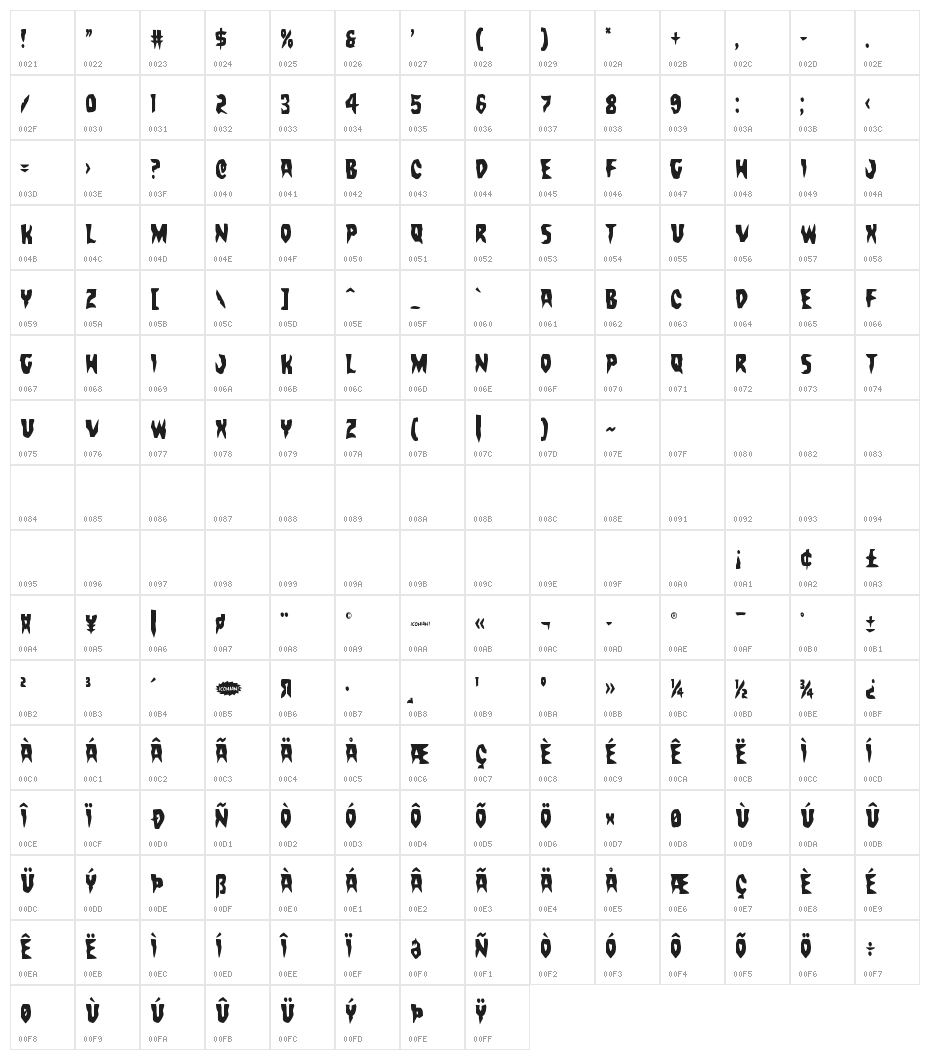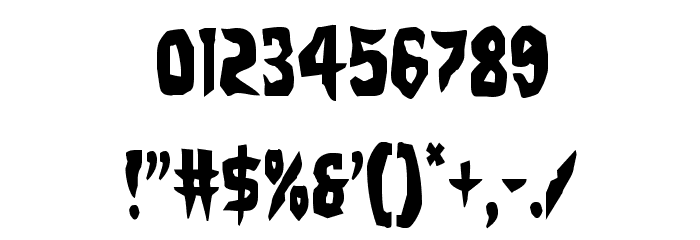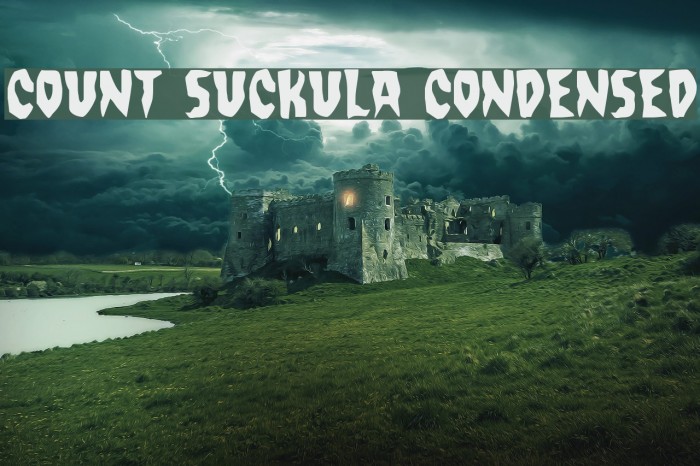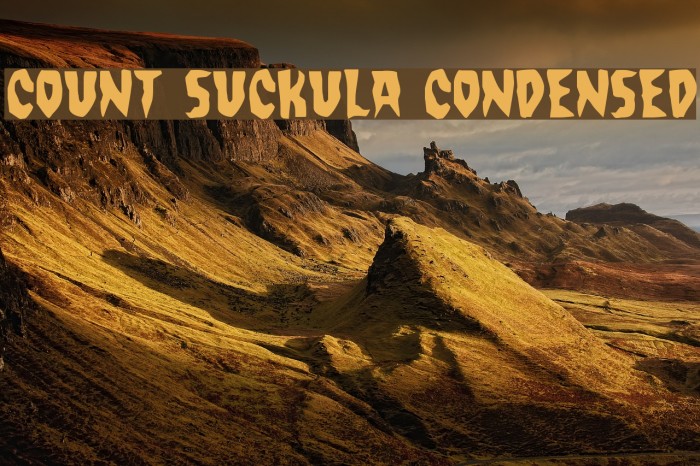
Count Suckula Condensed Font
Count Suckula Condensed Description
This font features a bold and dramatic style with sharp, angular edges and a condensed form. The characters are designed with a high level of contrast, giving them a striking and somewhat gothic appearance. The uppercase letters are particularly prominent, with exaggerated serifs and a unique, jagged look that adds to the font's distinctive character. The numbers and special characters maintain this bold and edgy aesthetic, making the font suitable for attention-grabbing designs. The overall style is both decorative and modern, with a hint of vintage flair.
| Proposed Projects | Ideal for Halloween-themed designs, posters, logos, and any project requiring a dramatic and eye-catching typeface. |